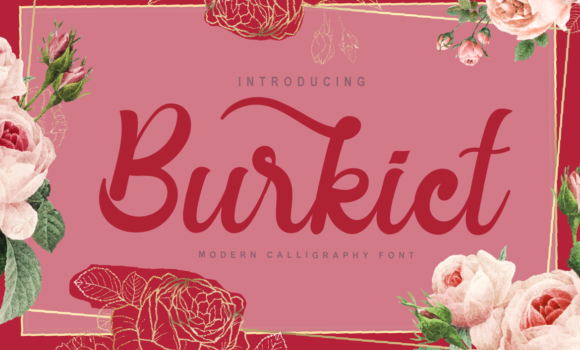
burkict
Burkict Font – Free Download Introduction to Burkict Font Burkict is a chic, refined script font that emanates sophistication and elegance. 📸 Preview Gallery 6 images 📌 Product Name Burkict Font 👤 Author himmahdesign 📂 Category Explore ⬇️ Download Burkict